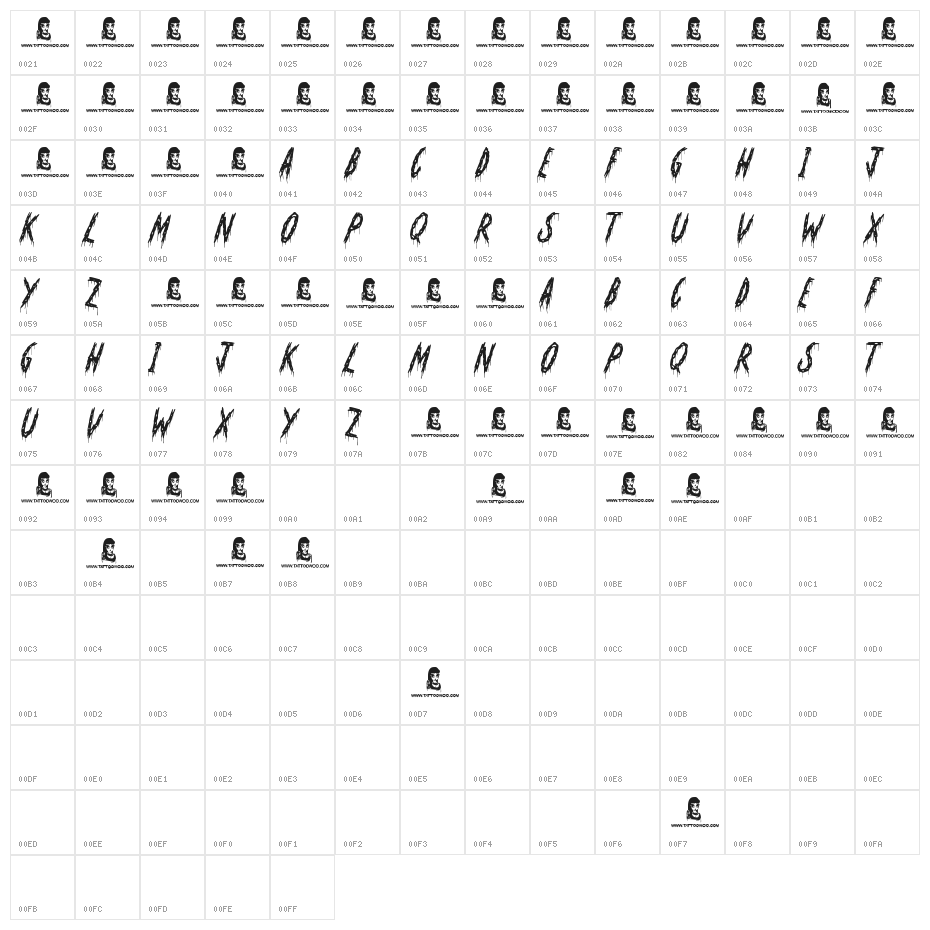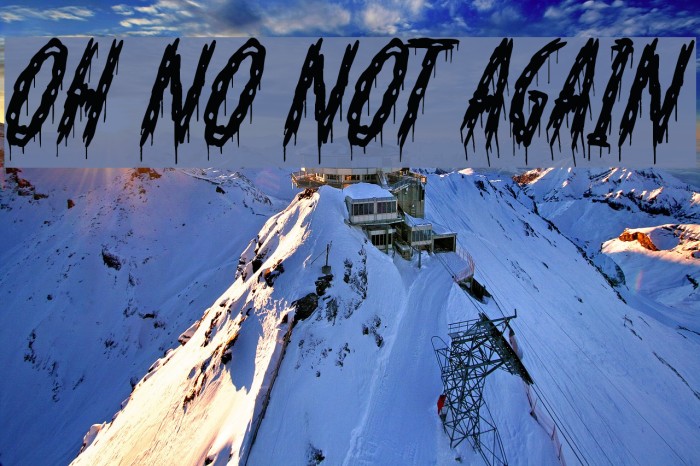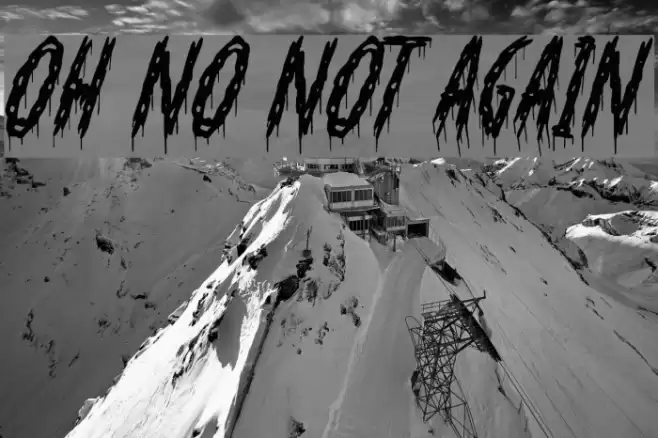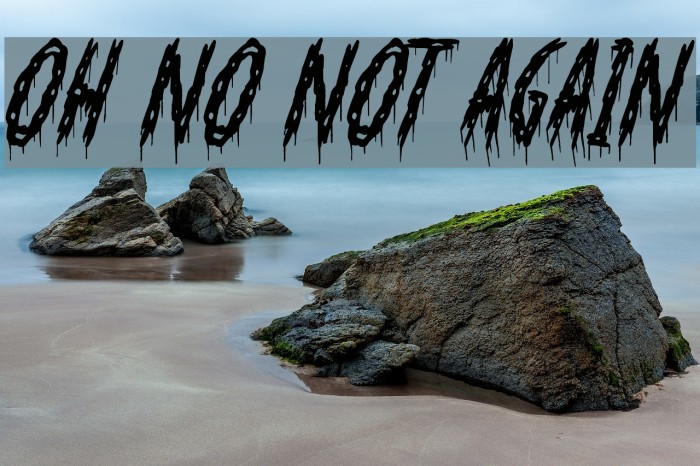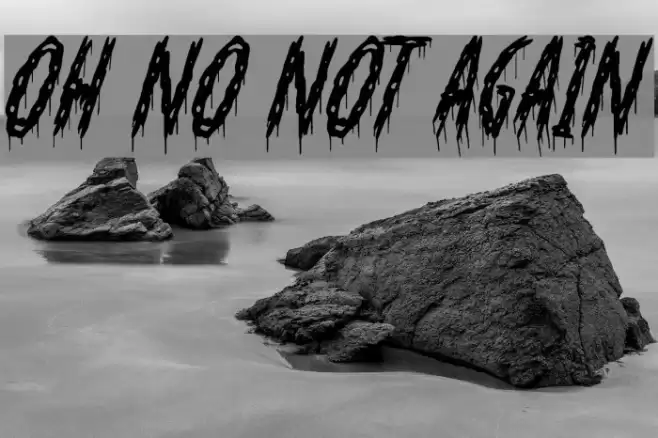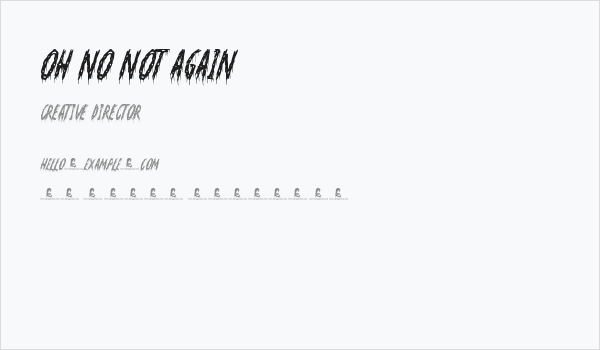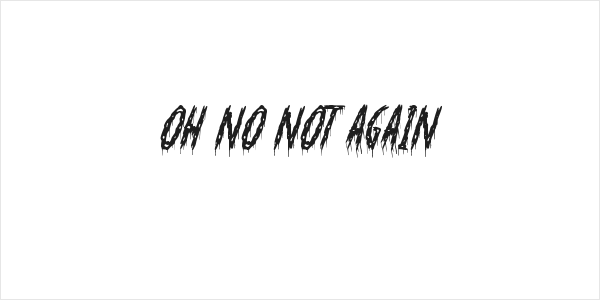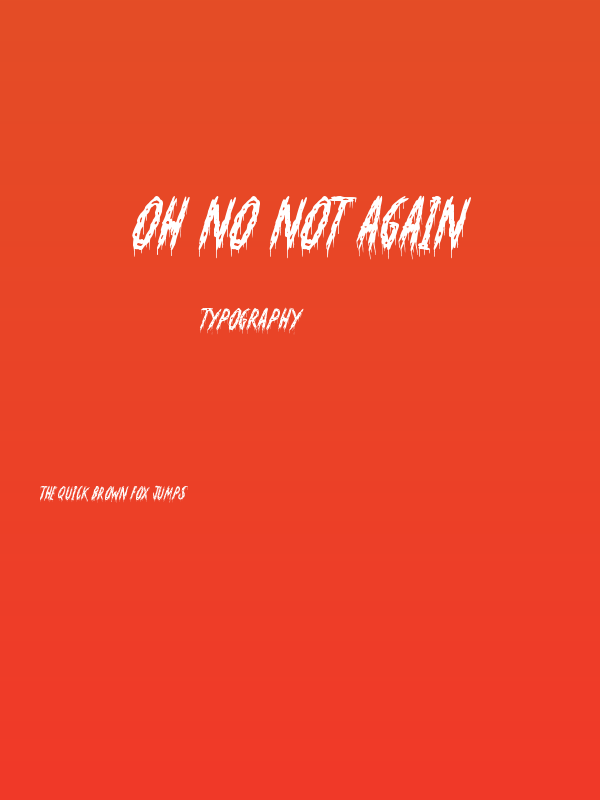
Oh No Not Again Font
Oh No Not Again Description
This font features a striking and edgy design with letters that appear to be dripping or melting, giving it a horror or grunge aesthetic. The uppercase and lowercase letters maintain a consistent style, with jagged edges and irregular shapes that add to its chaotic and intense appearance. The font's unique style makes it stand out, ideal for projects that require a bold and unconventional look. Its dramatic and artistic flair is perfect for capturing attention and conveying a sense of urgency or intensity.